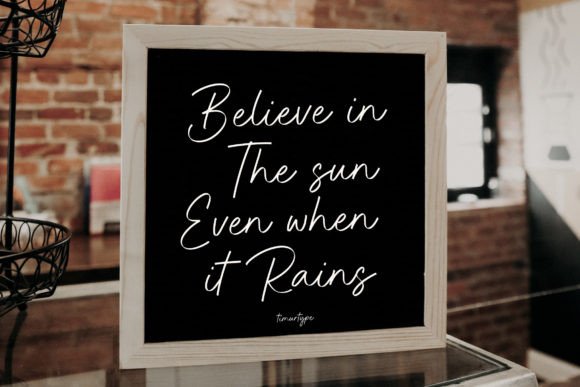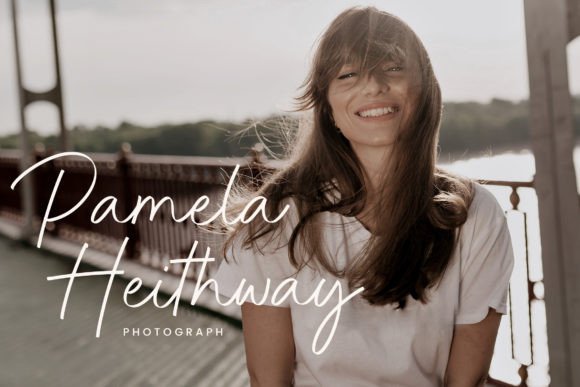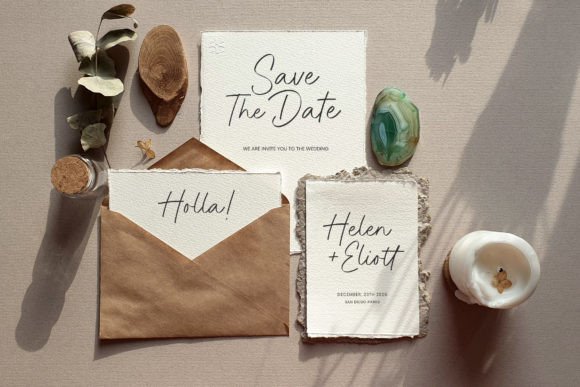
Brighton Signature Font
The Brighton Signature Font is an exquisite script and handwritten typeface that exudes elegance and sophistication. With its graceful strokes and intricate details, it adds a touch of luxury and personal touch to any project. Perfect for branding, invitations, logos, and other high-end design applications.Brighton Signature is perfect for product packaging, branding project, magazine, social media, wedding, or just used to express words above the background.This font includes: OTF & TTF, Brighton Signature also multilingual support.